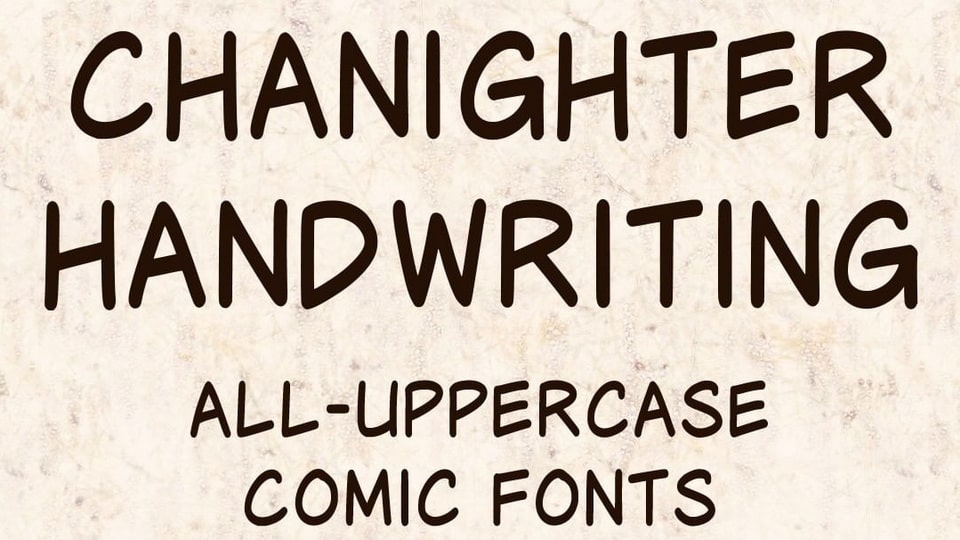
Download Chanighter Handwriting font, all-uppercase handwriting typeface specially designed for comics. It was designed by modifying the capture of Sin Chanighter’s handwriting.
Designer: Sin Chanighter